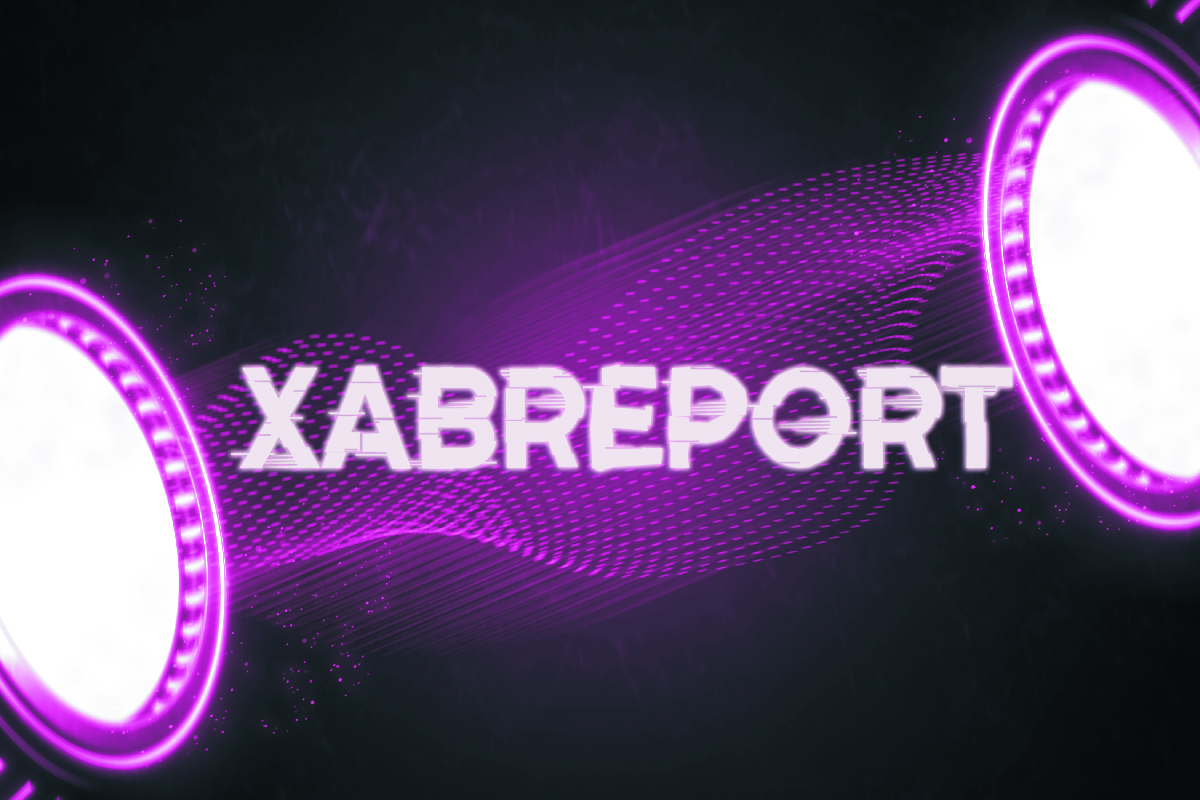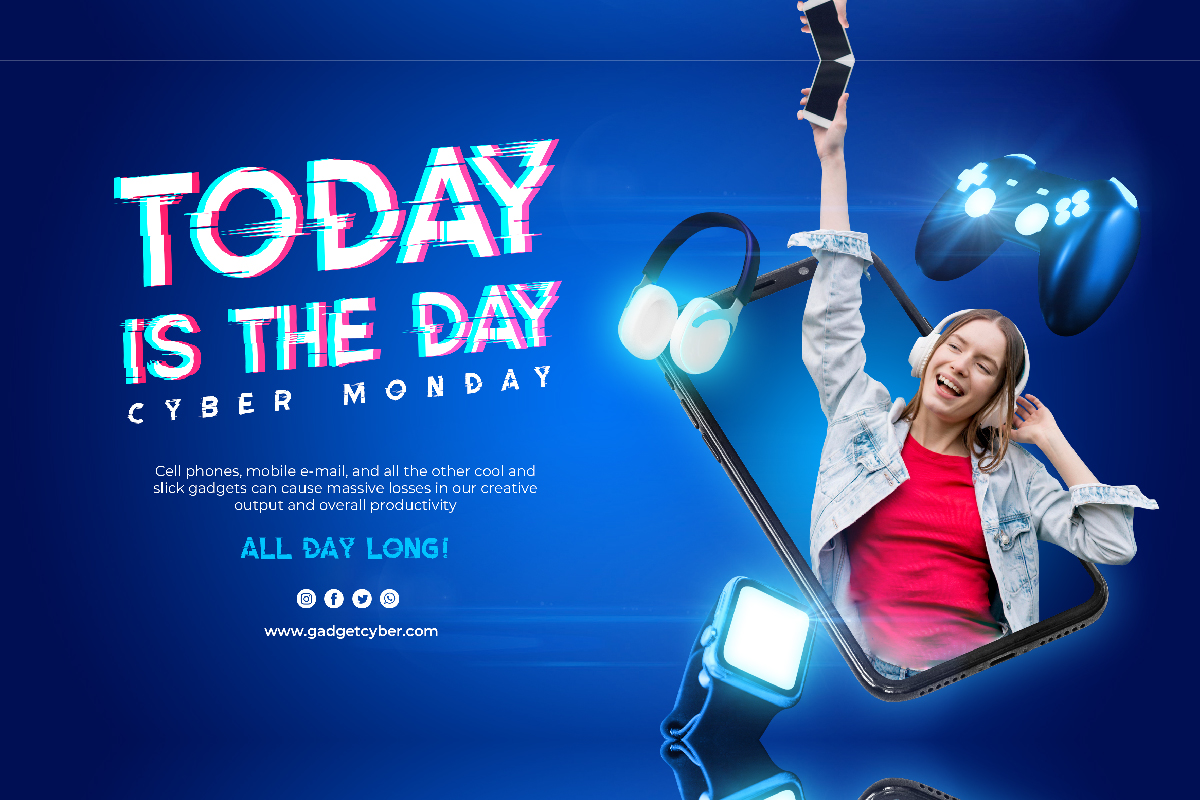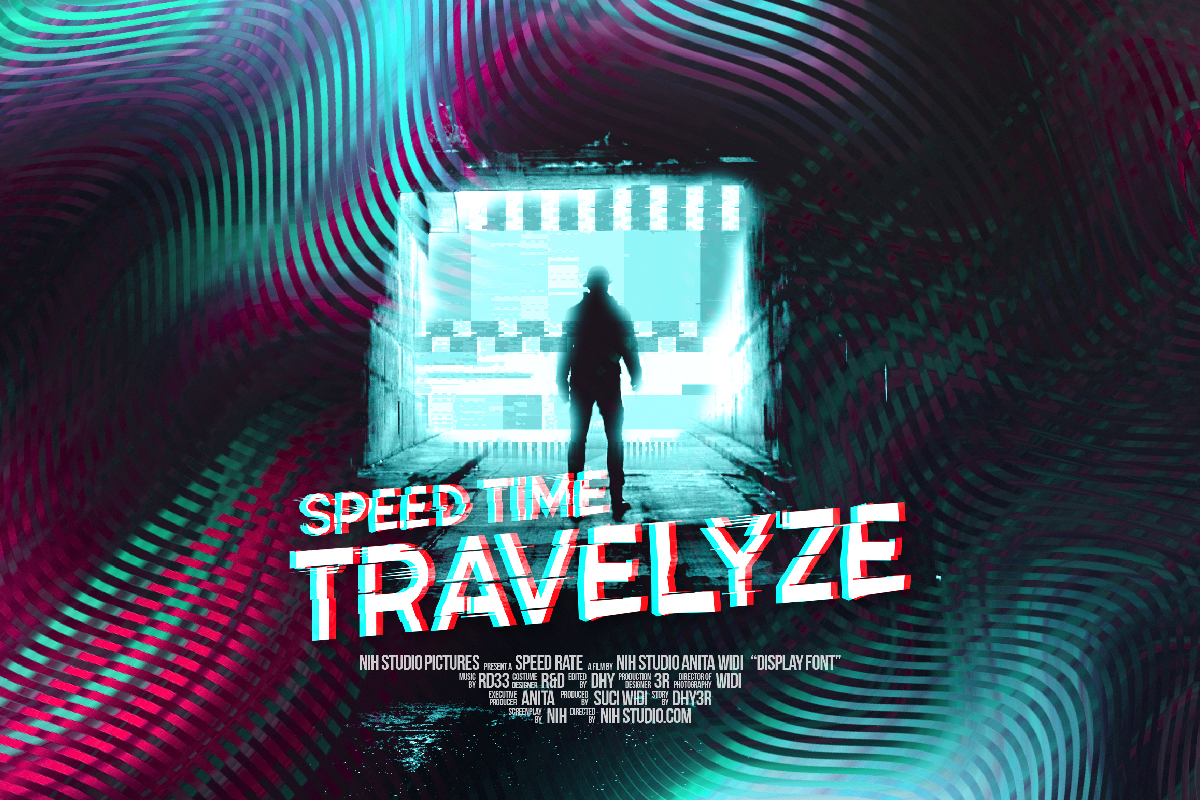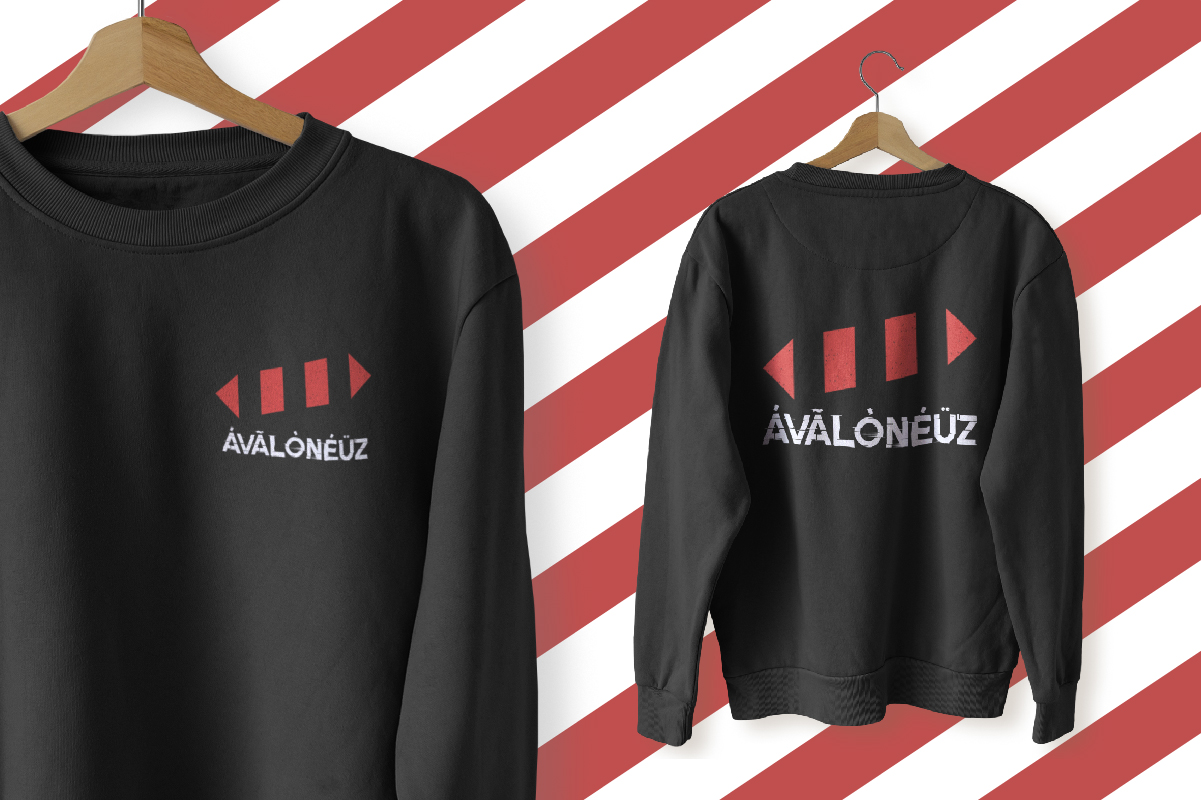
Speed Rate Font
Speed Rate Display Font
This is a speedy display with racing theme created by NihStudio. This font has a distinctive speed stripe and slightly irregular shape that makes it stand out and is perfect for industries like, automotive, electronic, energy drink, fashion, movie, space, technology, etc.